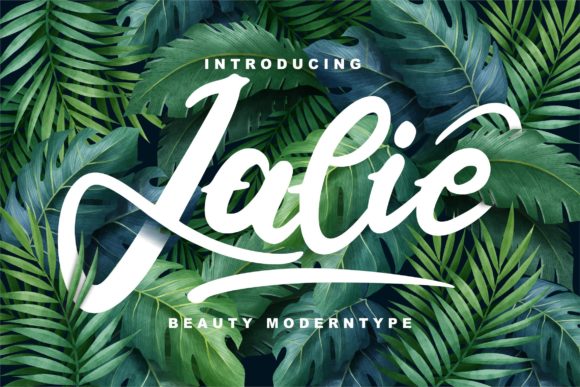
Introducing the captivating Jalie Font, a script masterpiece that will ignite your creative spirit!
With its impeccable calligraphic heritage, Jalie exudes an air of timeless elegance, effortlessly fusing the charm of tradition with a modern twist. Its versatile nature makes it a font chameleon, adapting seamlessly to a myriad of projects, from sophisticated letterheads to captivating titles and charming stationery.
Let Jalie's graceful strokes dance across your truck lettering, transforming it into an eye-catching spectacle that will turn heads wherever you go. Embark on a typographic adventure with Jalie, where your words will blossom into works of art, leaving an indelible mark on the world.
Unleash your inner artist with Jalie, the font that embodies the perfect balance of classic beauty and contemporary flair. Its versatility knows no bounds, inviting you to explore endless creative possibilities.
Don't let your creative vision be confined by ordinary fonts. Choose Jalie, the font that will elevate your designs, ignite your imagination, and leave a lasting impression on all who encounter it.
Dive into the world of Jalie today and experience the transformative power of typography. Let your creativity soar, and watch as your words take flight, carried aloft by the enchanting wings of Jalie.